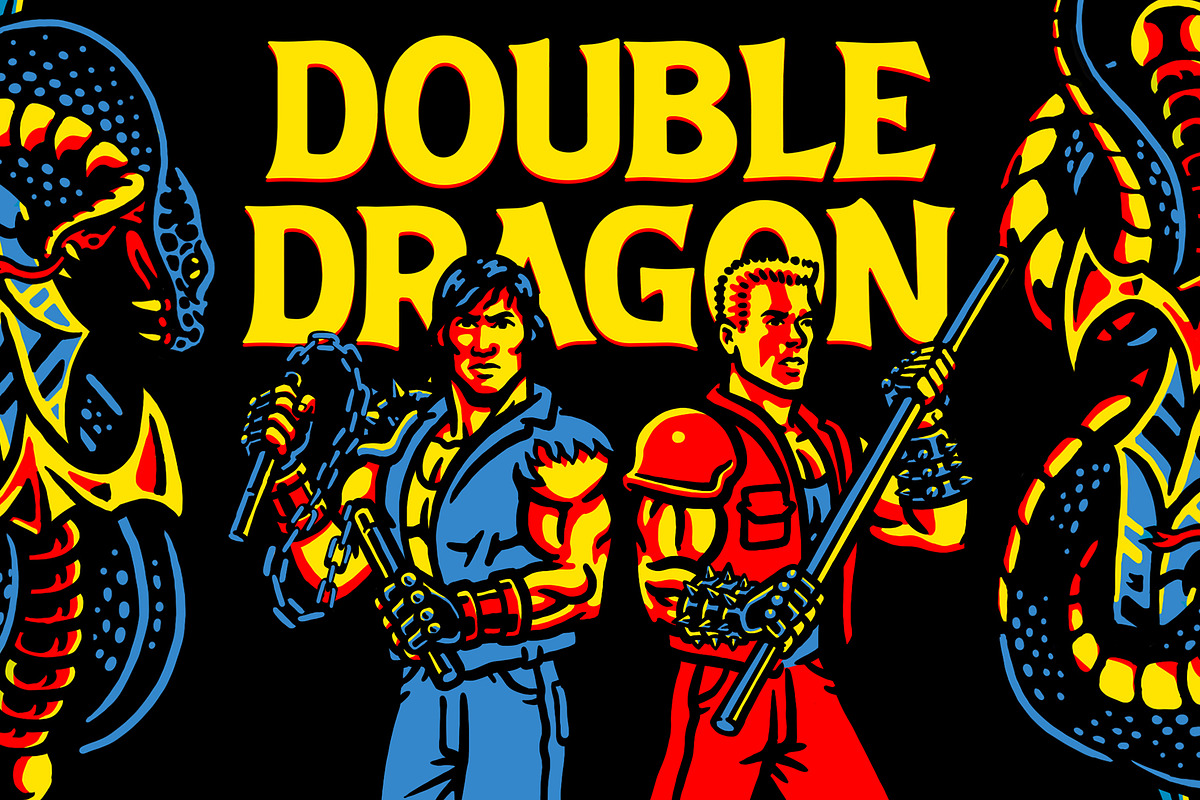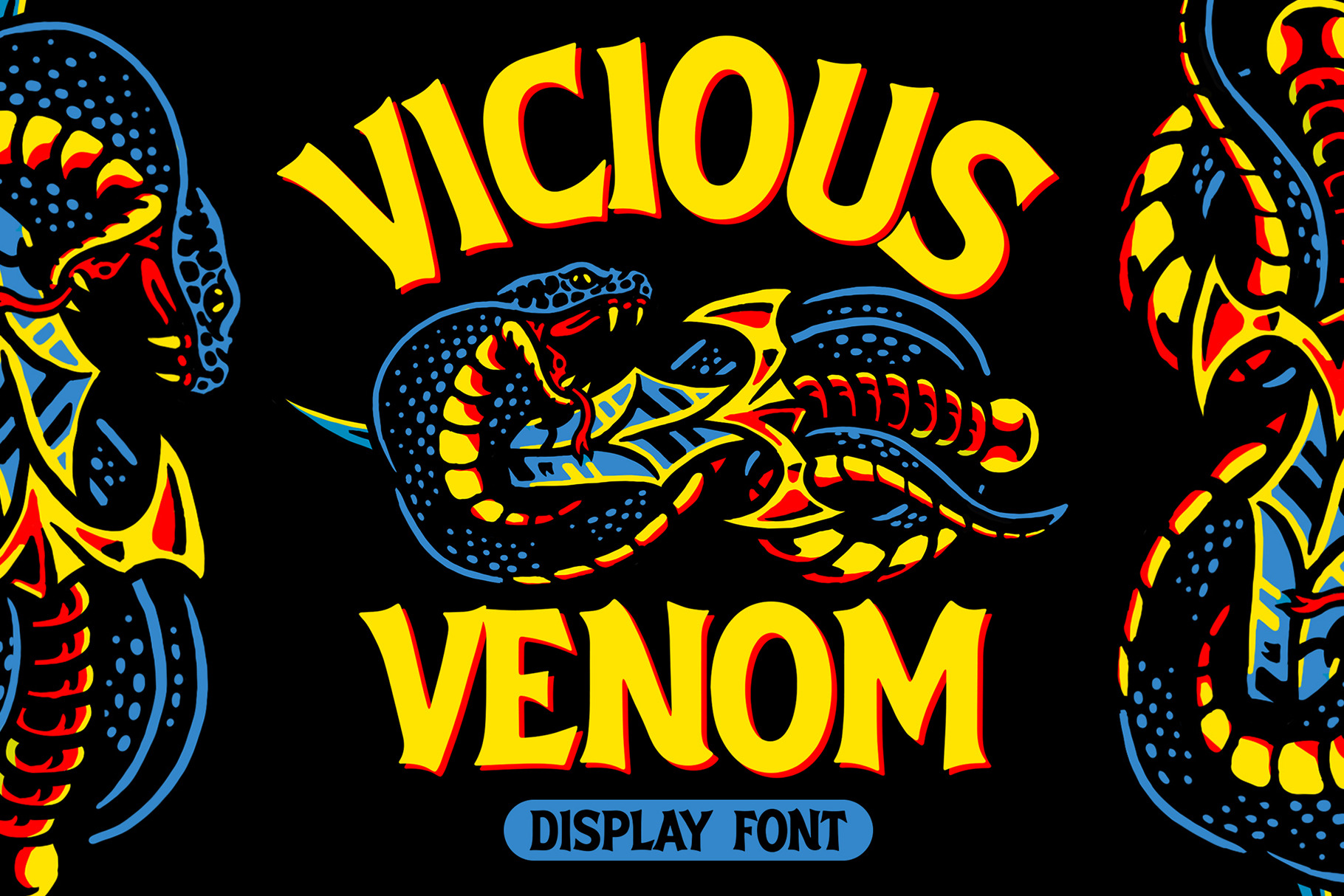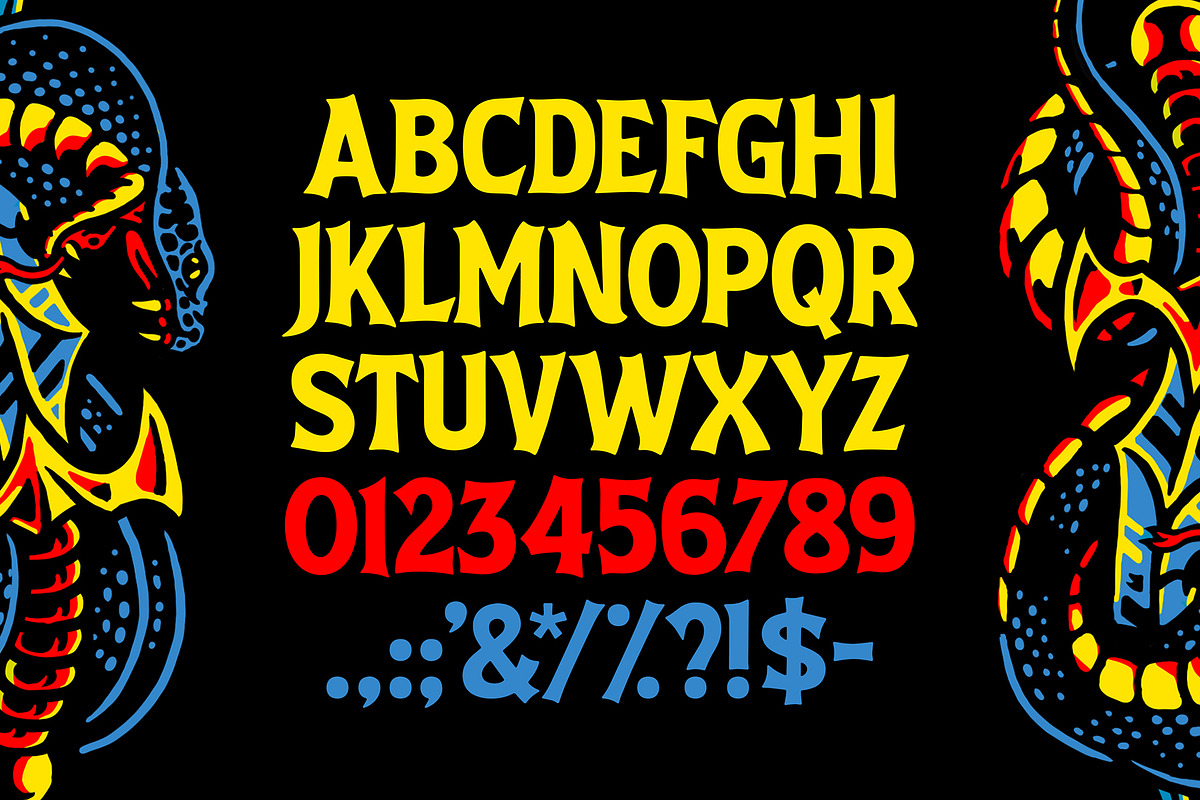
Vicious Venom Font
Vicious Venom is a badass font with an Heroic Fantasy aesthetic. If your are looking to make a tough artwork, this font is for you!
Comes with Uppercase Letters, Alternates, Numbers and some punctuation.